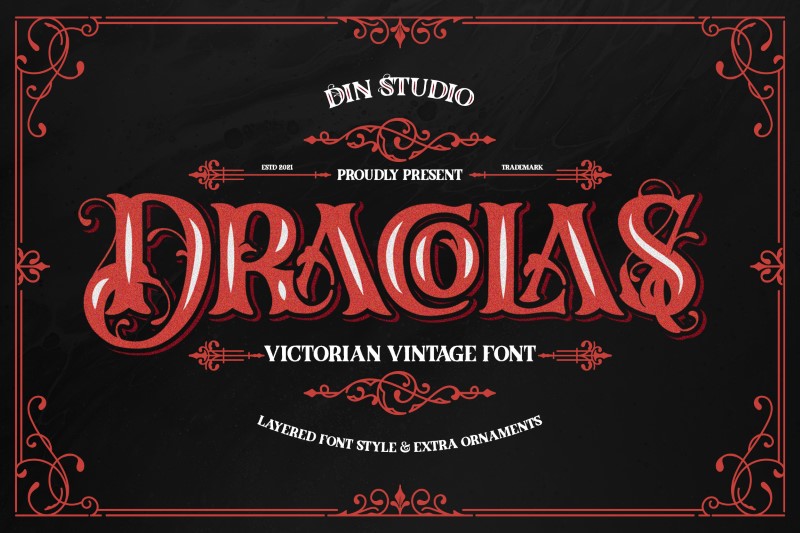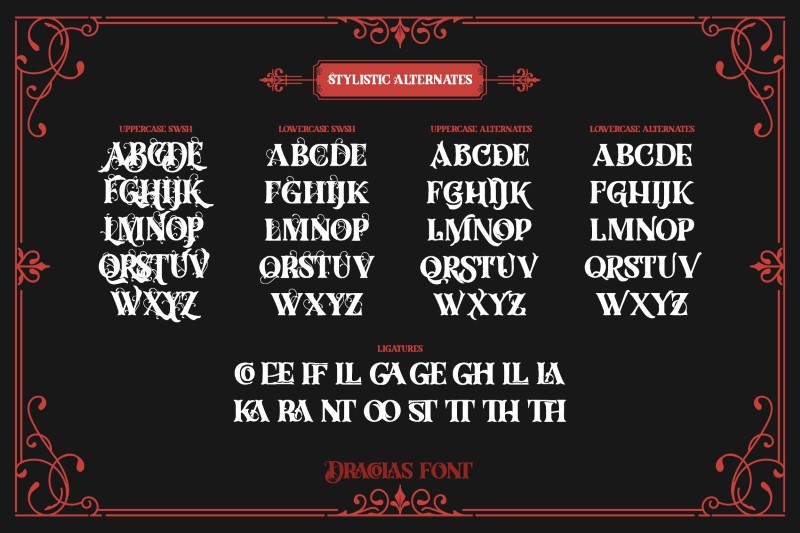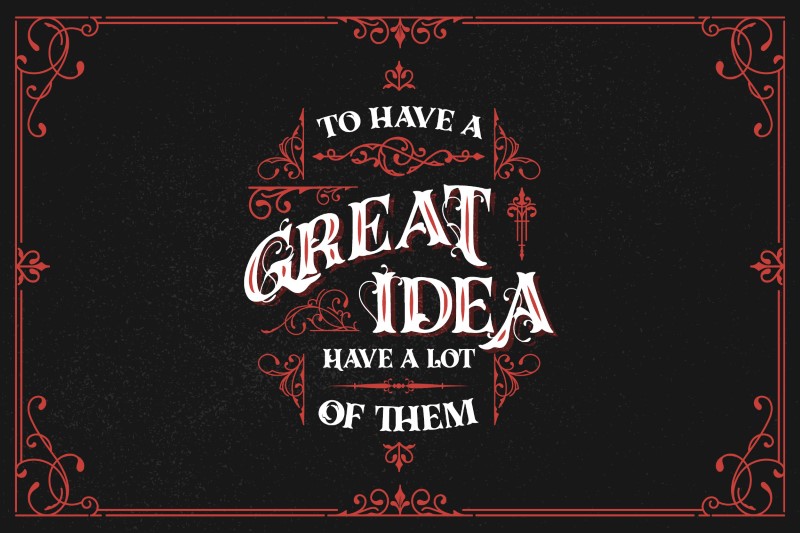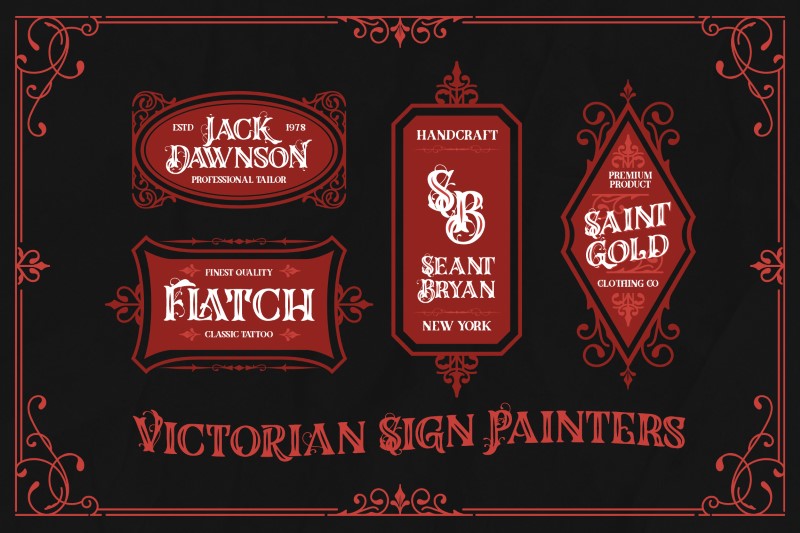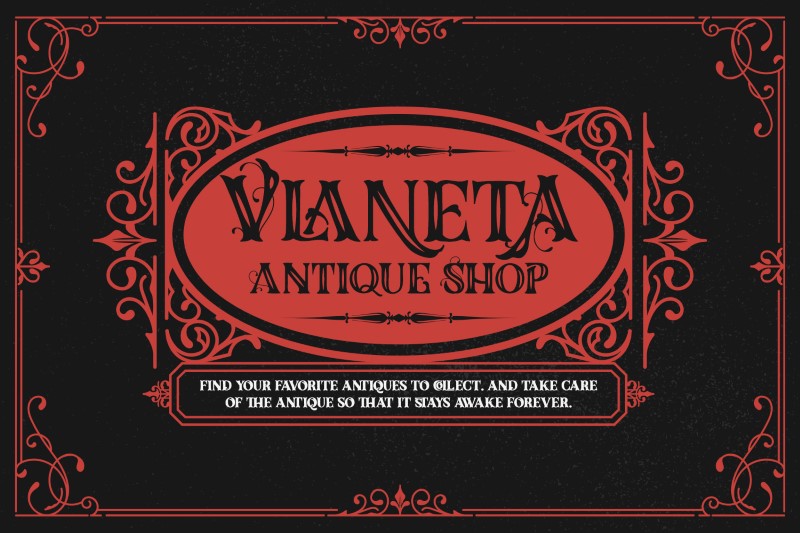
Dracolas – A Victorian Vintage Font is a typeface that made all characters in uppercase. It is an excellent choice to add the right amount of retro touch. This typeface with artistic style looks very interesting for loads of different projects and promotions. A great all-in-one package for your logo, book cover, poster, t-shirt, branding, and advertisement needs.
The vintage font includes a full set of character A-Z, multi-lingual support, ligatures, swashes, numerals, and punctuation.
Features :
- Swashes
- Alternates
- Bonus Ornament
Dracolas fits in headlines, logos, posters, flyers, branding materials, print media, editorial layouts, and many more. Find out more ways to use this font by taking a look at the font preview.